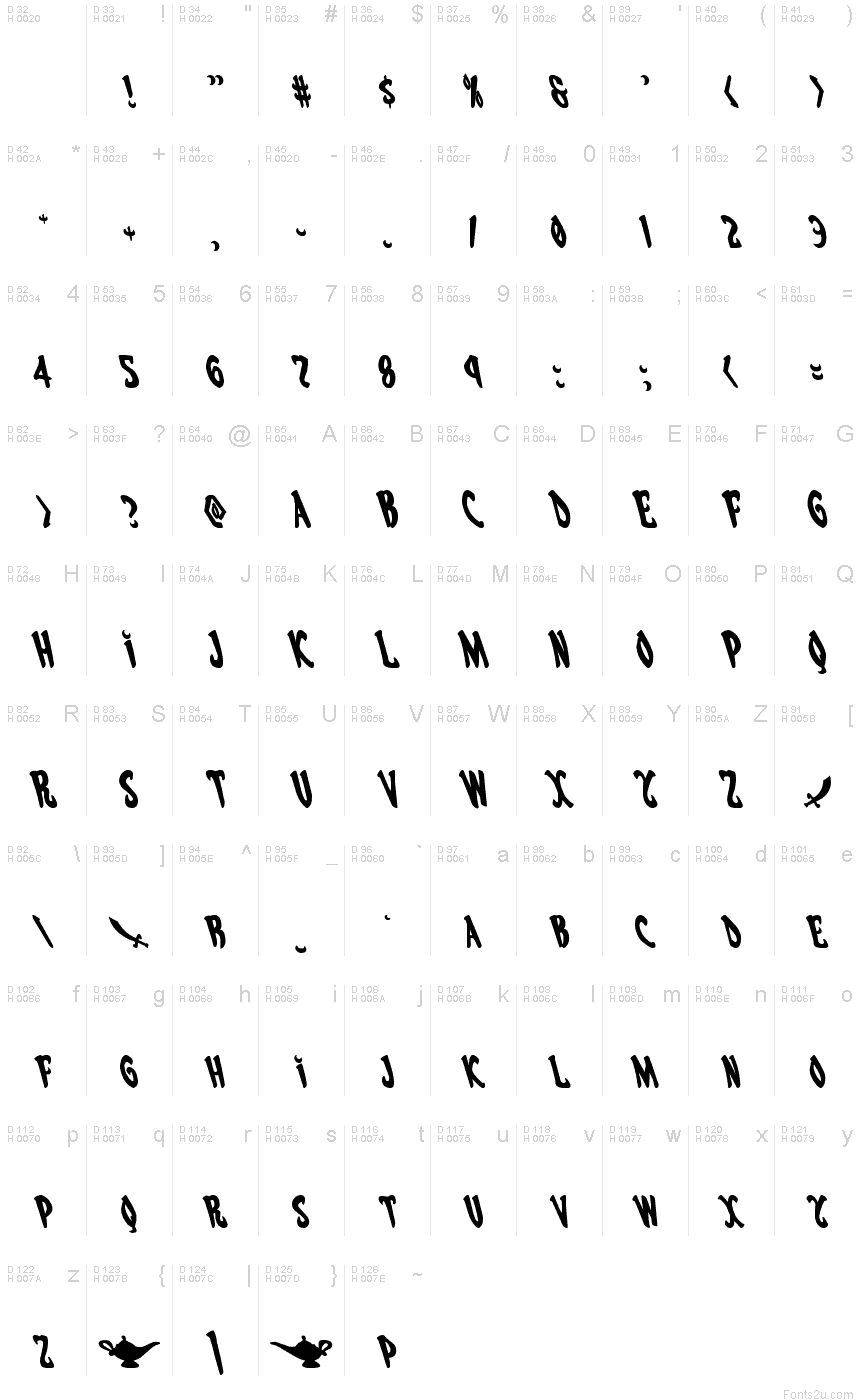
Eskindar Leftalic by Iconian Fonts is a free Arabic-inspired display font with broad, dark strokes, tapered points, dramatic changes of width, and hooked or pinched endings that echo sweeping pen forms. The letters lean and buckle with lively, uneven proportions.
Its strongest role is in theatrical posters, music artwork, and event graphics, where the rolling silhouettes and sharp cuts suggest a dramatic storybook setting. For restaurant packaging and entertainment branding, the lettering can become part of an illustrated sign or emblem rather than serving as neutral type.
Presentazione e campione visivo del carattere Eskindar Leftalic
Mappa dei caratteri di Eskindar Leftalic
Mappa dei caratteri di Eskindar Leftalic: Latino di base, pagina 1
Glifi del carattere Eskindar Leftalic — Latino di base, pagina 1